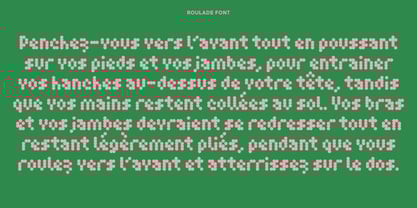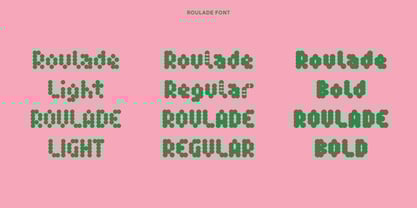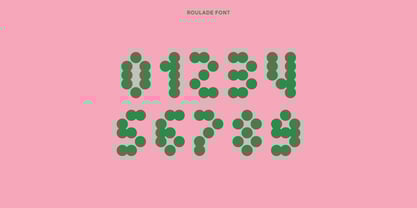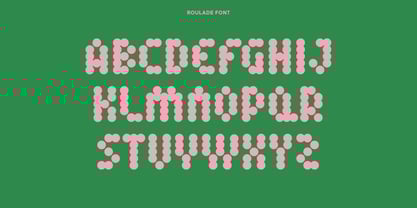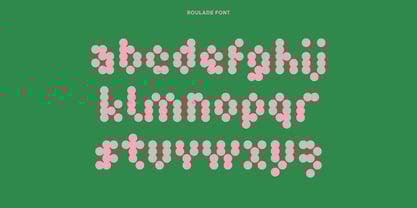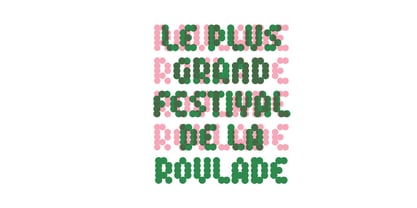
Roulade
by Asensò
The Roulade Font Family was designed by Romain Diant and published by Asensò. Roulade contains 3 styles and family package options. More about this family
Roulade is a playful, geometric typeface based on a single formal repertoire: the round. By duplicating and deploying this shape on a 3 by 5 point grid, the ensemble gives life to singular glyphs whose typographic gray remains incomparable. Its jovial, graphic look makes this typeface a must-have for expressive, cheerful communication.
Roulade's main use is for composing headlines and messages with text sizes large enough to ensure optimum legibility, while offering its own unique graphic design. To be on the safe side, remember to place your hands behind your neck - get rolling!
Designers: Romain Diant
Foundry: Asensò